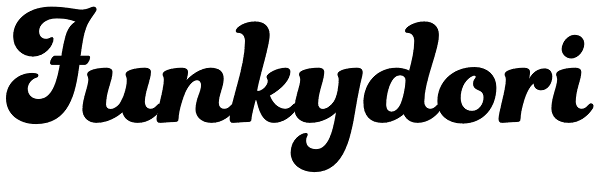
Funkydori
Like most children of the ‘70s, I rocked the rainbow-striped bellbottoms, decorated her room with black-light posters of unicorns, and watched The Electric Company on TV. Funkydori is my typographic homage to that groovy decade, updated for 21-st...
Funkydori
Funkydori Bold